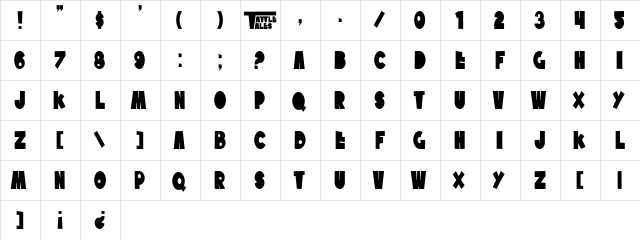
SF Tattle Tales Condensed Bold Font Preview
Design Context for SF Tattle Tales Condensed Typeface
SF Tattle Tales Condensed takes a measured approach to typography — its balanced proportions and neutral character make it a reliable workhorse for both digital and print work. Its bold stroke weight gives it real presence on the page. The condensed width makes it efficient for tight spaces without sacrificing legibility.